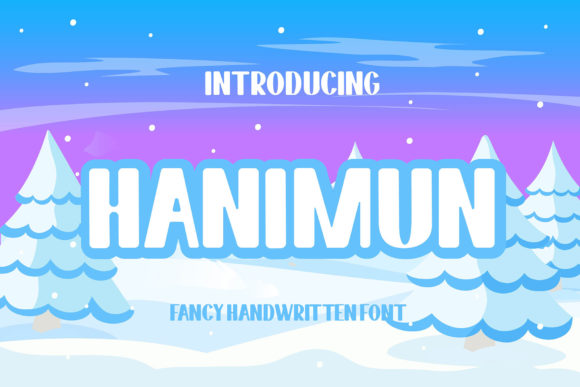
Hanimun Font
Font Name : Hanimun Font
Author : Authentic Studio
Unleash the charm and allure of your creative projects with Hanimun Font, a captivating display font that will transform your designs into masterpieces. Picture the elegance of a paint-brushed stroke, adding an enchanting touch to your wedding invitations, stationery, social media posts, and more.
With Hanimun, you'll discover a treasure trove of delightful possibilities. Its friendly and inviting style invites you to let your imagination soar, creating designs that resonate with warmth and joy. Whether you're a seasoned designer or just starting your creative journey, Hanimun will guide you towards stunning and memorable creations.
Imagine your wedding invitations, adorned with Hanimun's graceful letters, conveying the essence of your love story in a truly unique way. Envision your stationery, infused with a personal touch that reflects your individual style. Picture your social media posts, bursting with vibrant energy and captivating your audience with every stroke.
Hanimun is your gateway to a world of endless possibilities, allowing you to turn ordinary designs into extraordinary expressions of art. Embrace its charm, and let your creativity bloom with Hanimun Font.